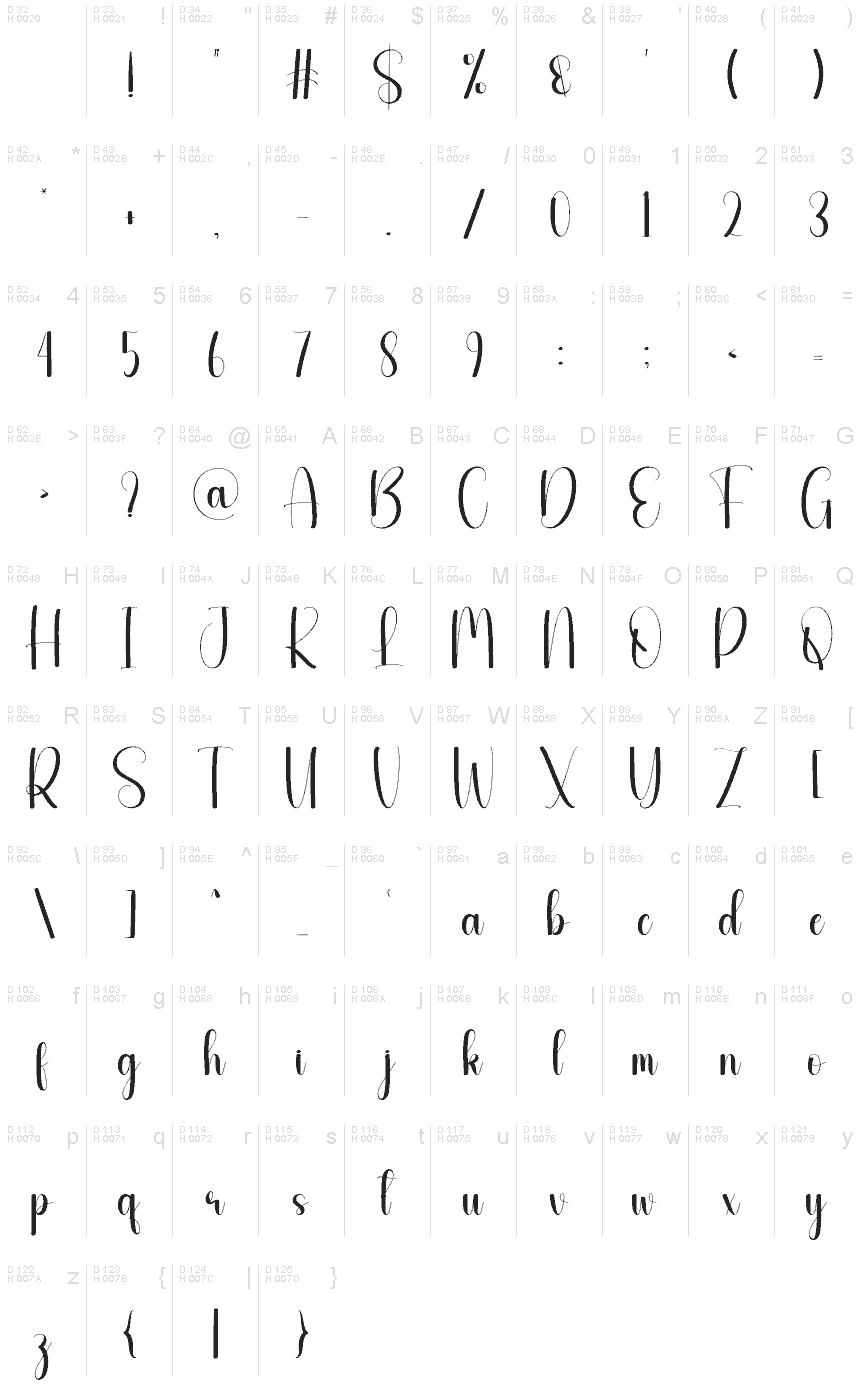
Recent font by Andi Moz is a free calligraphy font characterized by an elegant and flowing design. Its expressive strokes offer a modern twist, making it ideal for projects that demand both sophistication and contemporary flair.
Perfect for wedding invitations, branding projects, place cards, magazine titles, greeting cards, logos, blogs, social media posts or any other occasion which might benefit from a stylish touch. The download file contains the Recent .TTF in high quality with licenses stated inside.